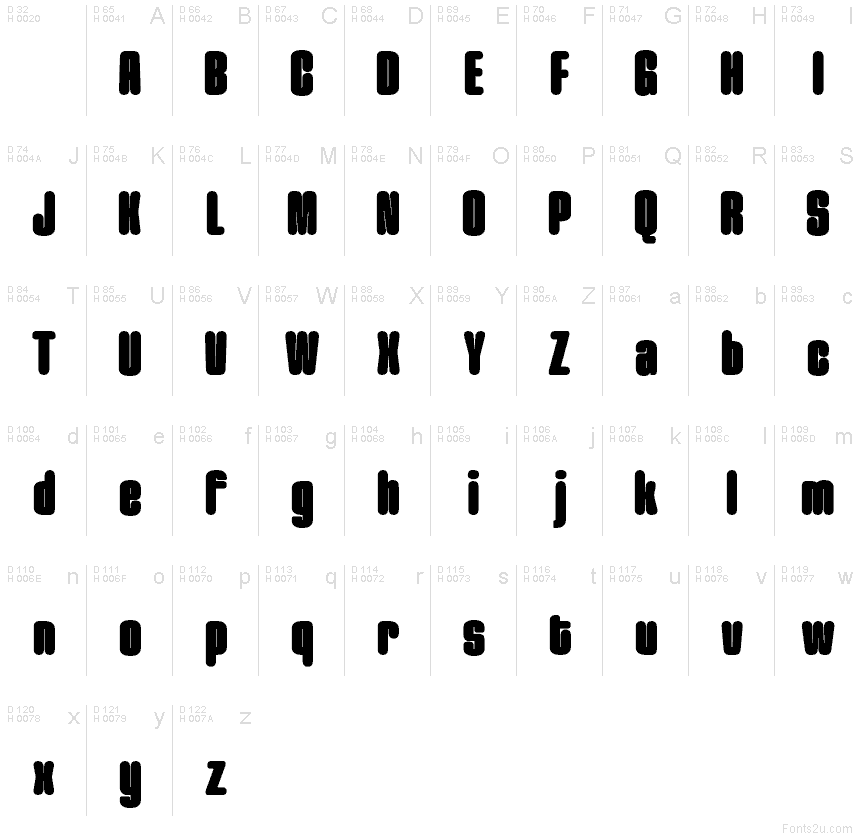
PaveliseRounded-Regular Demo
Pavelise Rounded font by Craft Supply Co. artfully combines modern geometric minimalism and retro inspirations. This is a bold, condensed sans serif with soft rounded corners for a gentle, friendly tone that feels welcoming and upbeat. Use the free font to enjoy well-defined yet unobtrusive letterforms in a variety of formal or informal contexts.